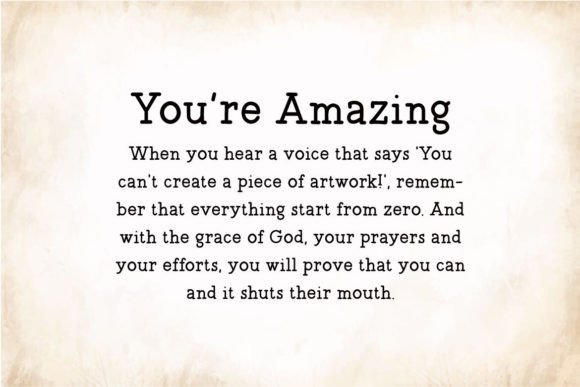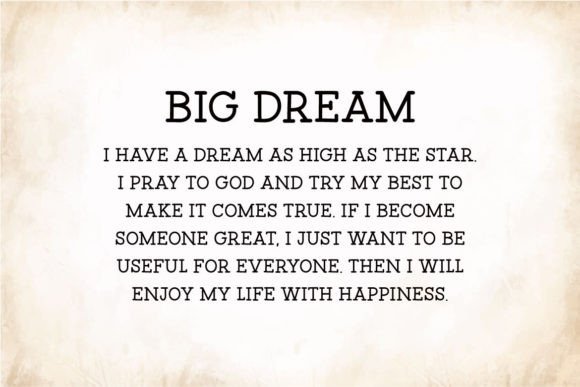
Introduction to Hyper Writer Font
Remember the feeling of typing away on a vintage typewriter, the sound of the keys clacking, and the satisfaction of seeing your words come to life on the page? For many creatives, this nostalgic experience is a reminder of the joy and simplicity of writing. That’s exactly what the Hyper Writer Font aims to capture – the essence of old-school typing, distilled into a high-quality, versatile typeface that’s perfect for adding a touch of classic charm to your designs.
Key Features of Hyper Writer Font
- High-quality design for creative projects, including books, magazines, and digital media
- Unique, modern design with a transparent background, making it perfect for overlaying on images or backgrounds
- Designed as a design resource for graphic designers, writers, and artists working on creative projects
- Unique characteristics include a bold, yet elegant design, with a range of font styles and weights to suit different creative projects
Honest Review: Hyper Writer Font
I recently stumbled upon the Hyper Writer Font and was excited to see how it would perform in my creative project. As a designer, I’m always on the lookout for high quality design resources that can elevate my work. And I’m happy to say that the Hyper Writer Font did not disappoint!
- Modern and sleek design
- Transparent background for easy pairing
- High quality design resource
However, I did notice that the font is not as versatile as some other fonts I’ve worked with. It’s best suited for titles and headings, and may not be the best choice for body text. ⚠️
Overall, I’m really impressed with the Hyper Writer Font. It’s a great addition to any designer’s toolkit, and I would definitely recommend it for any creative project.
The Hyper Writer Font is commonly used in a variety of design projects, including:
- Blog posts and articles
- Infographics and visualizations